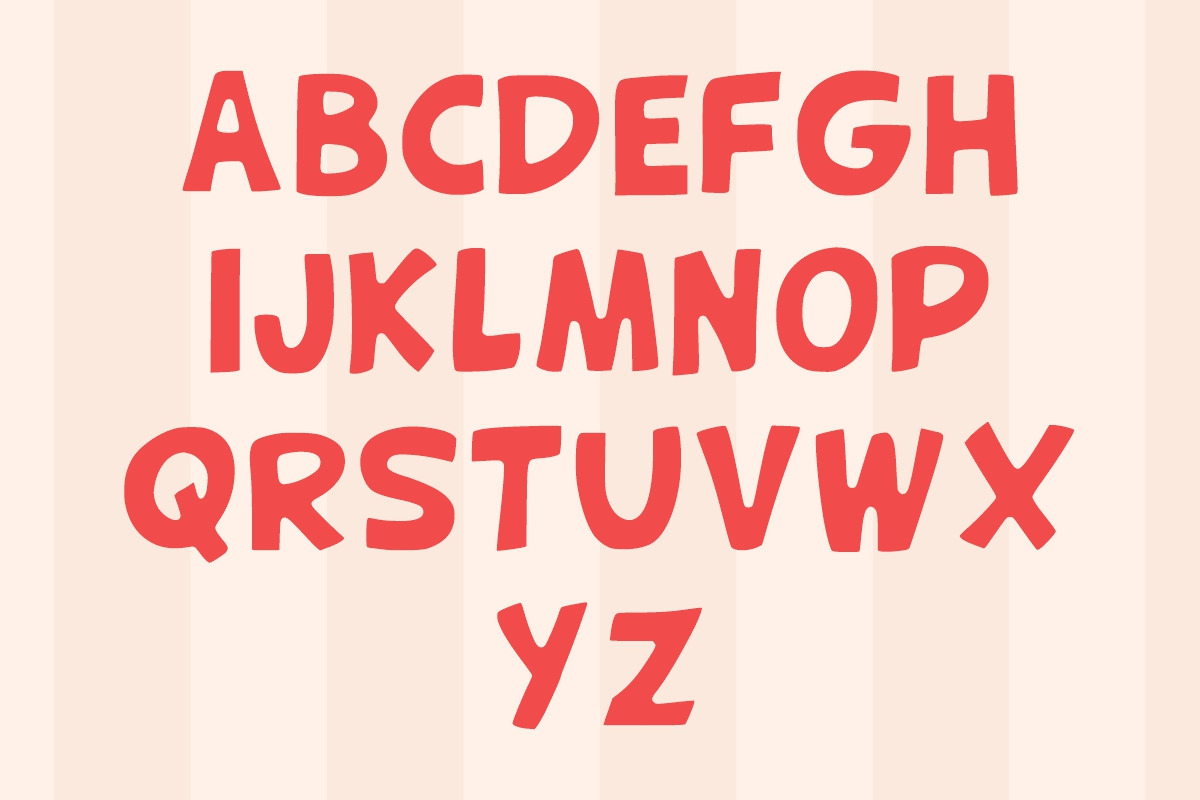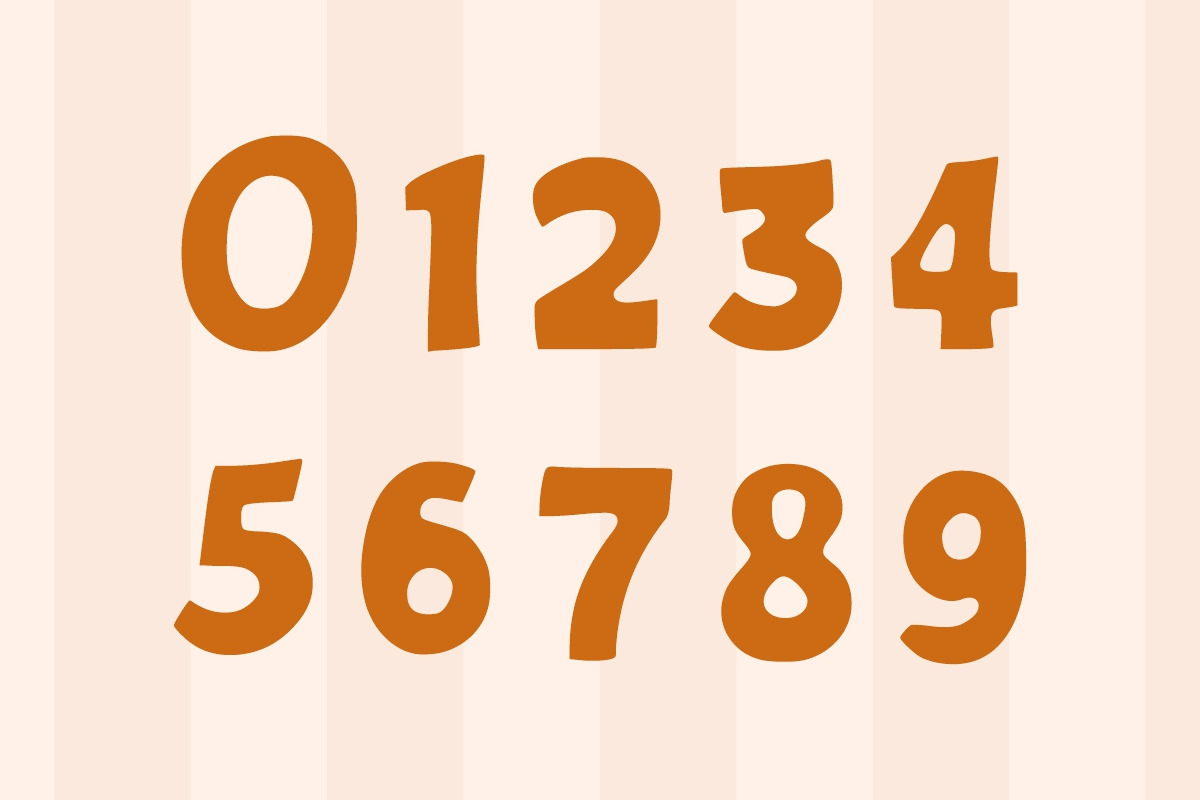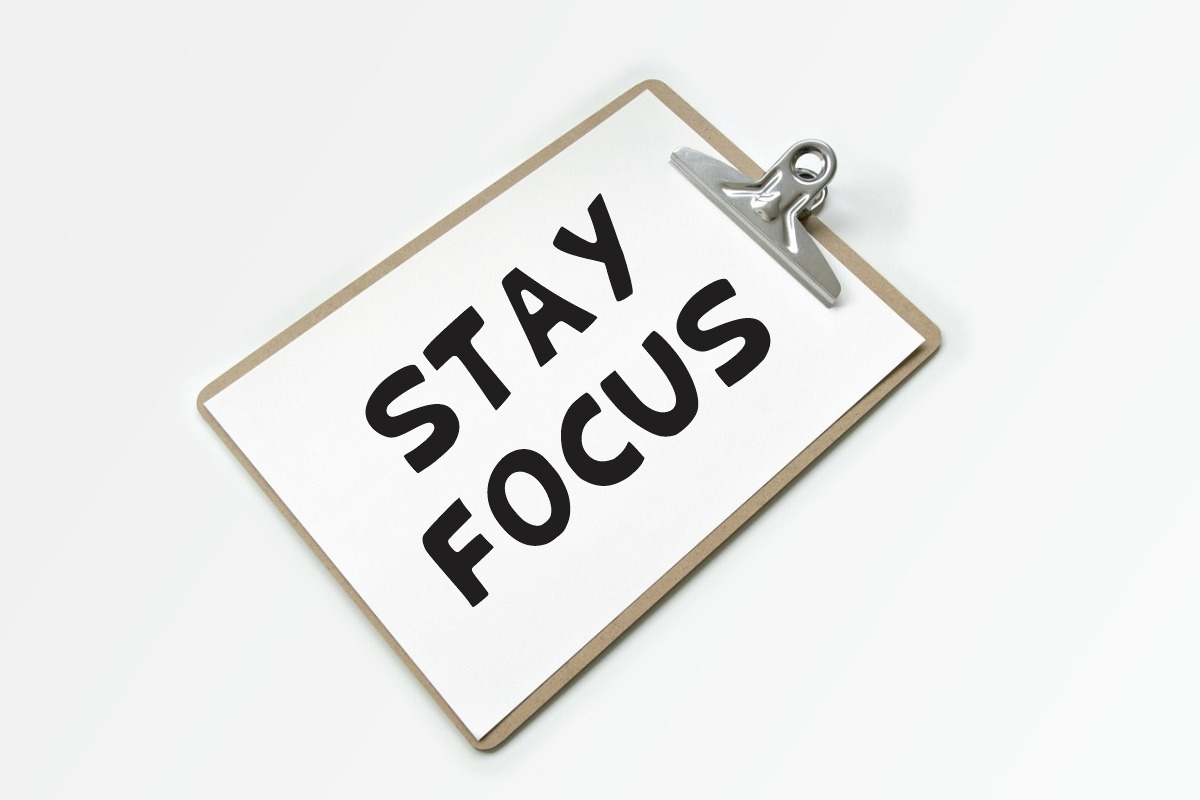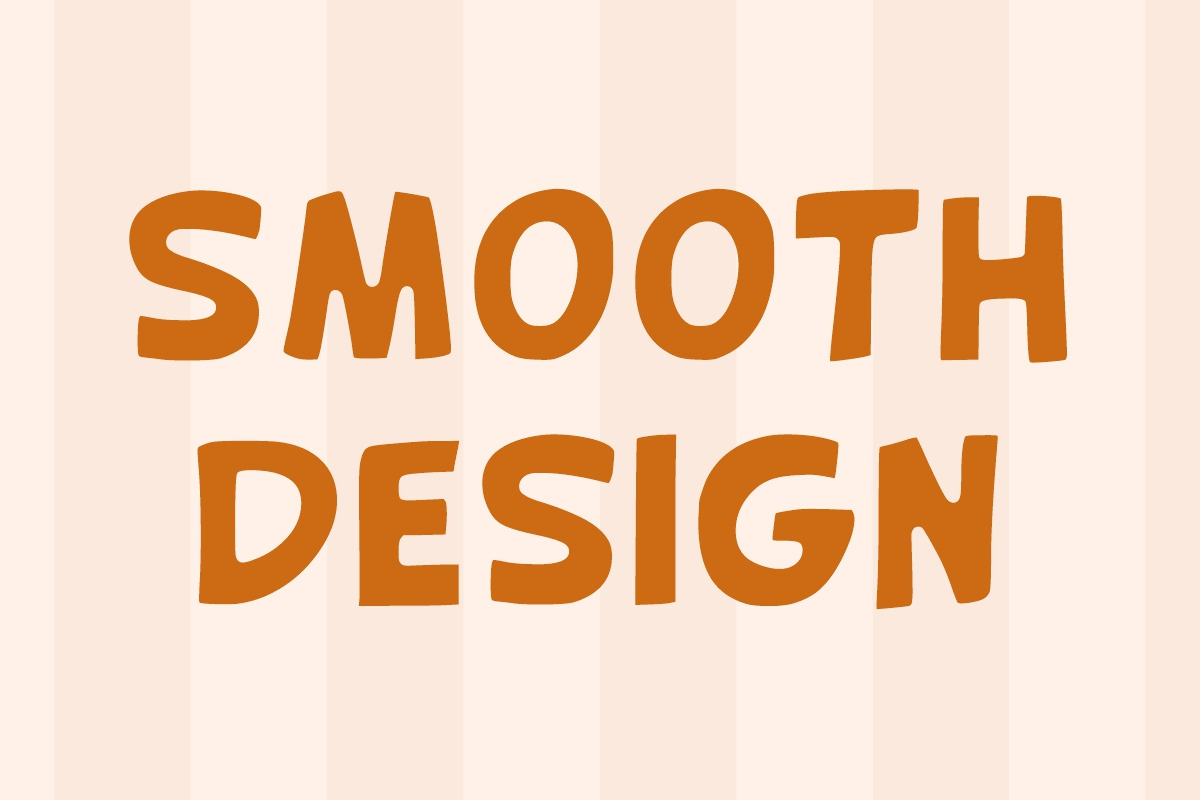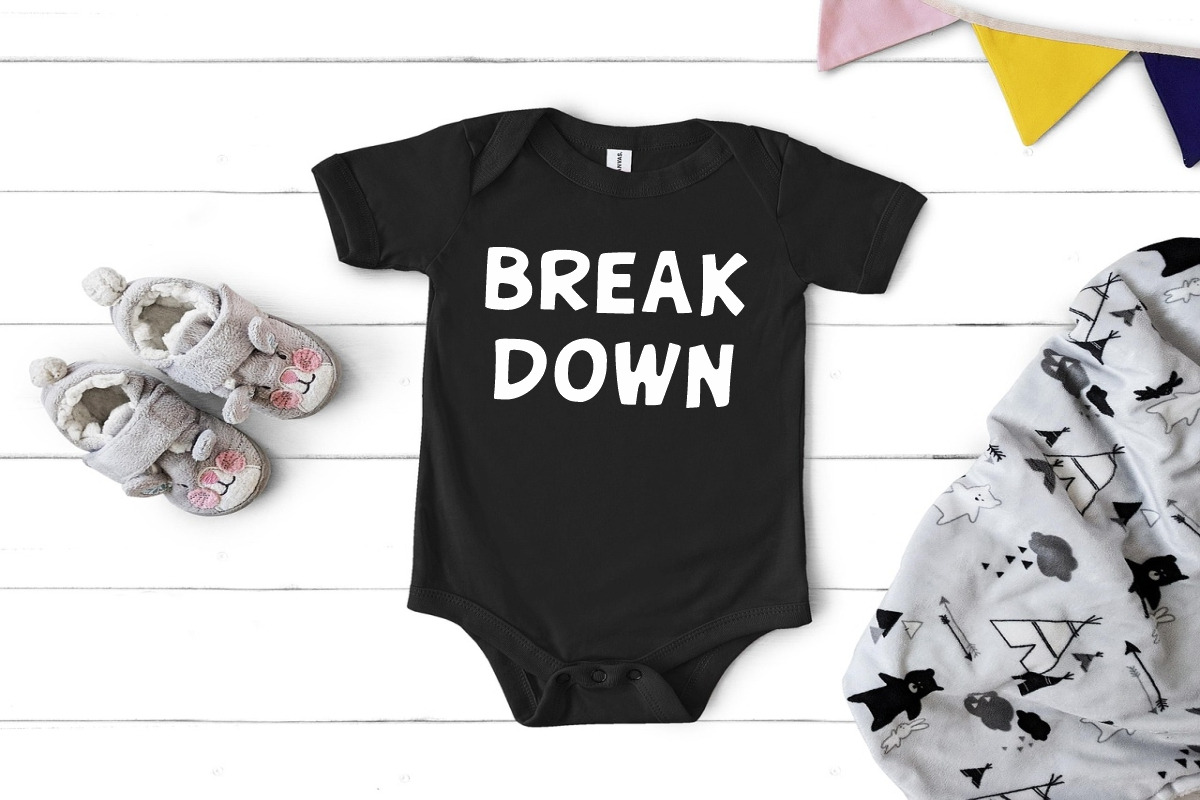
Hello Sunday Display font
Hello Sunday is a casual and neat display font that combines simplicity with a friendly, approachable vibe. Featuring clean lines, balanced letterforms, and subtle rounded edges, it captures the essence of modern handwritten typography with a polished finish. Ideal for branding, headlines, packaging, and digital content, it adds a warm and inviting touch to any design. With its crisp structure and versatile style, this font delivers clarity and charm in equal measure.